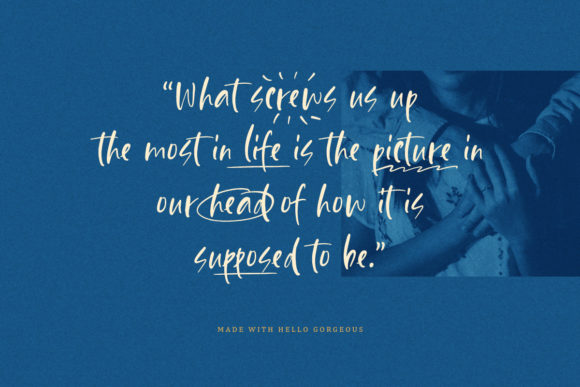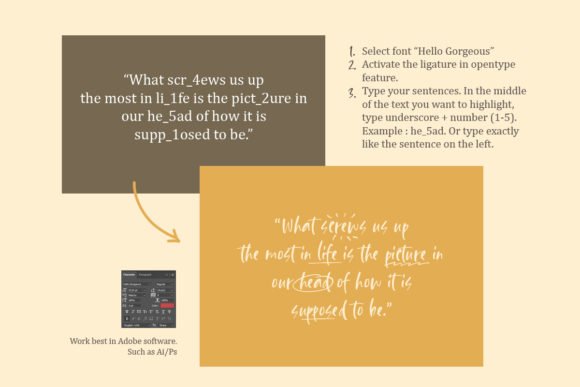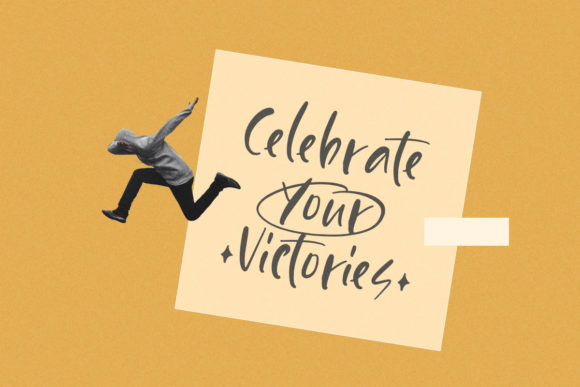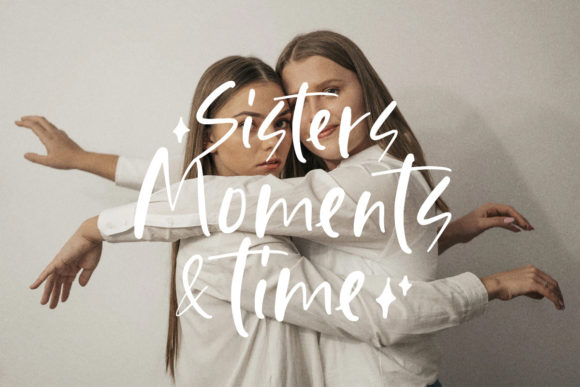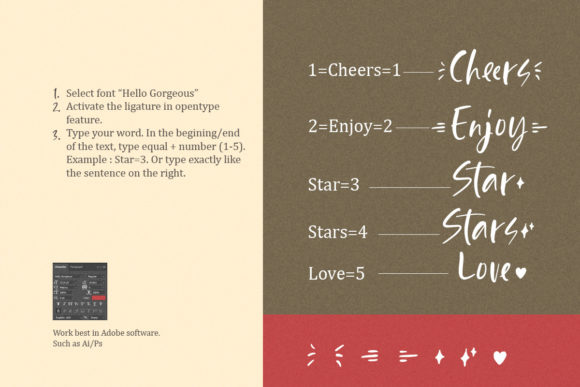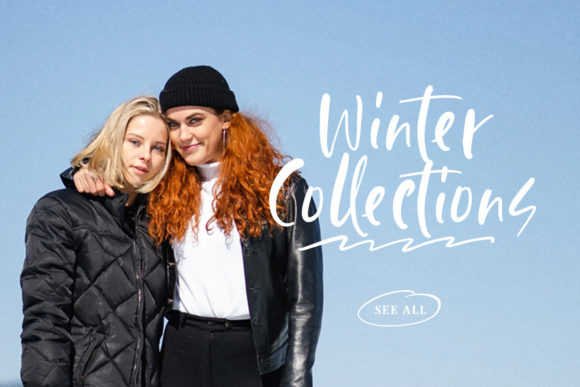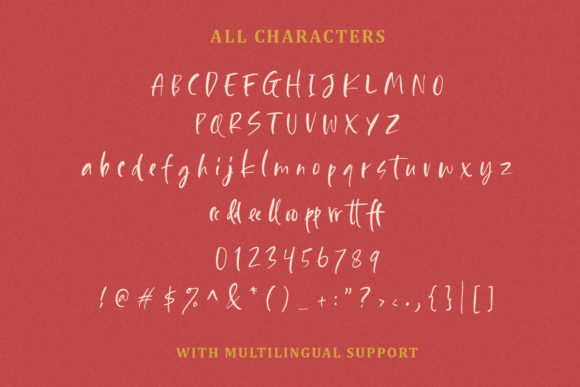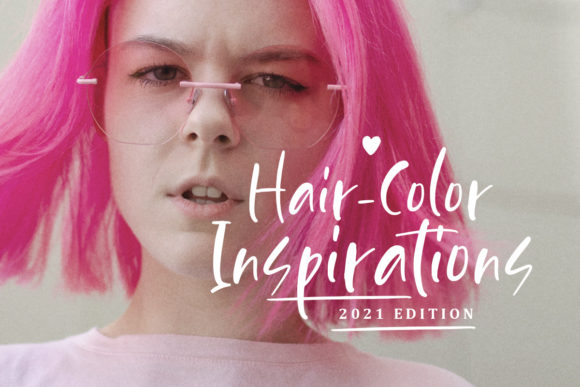
Hello Gorgeous Font
About Hello Gorgeous Font
Hello Gorgeous is a cute, adaptable and relaxed handwritten font. Its sweet and full of life style makes this font a wonderful choice for brightening up your designs.